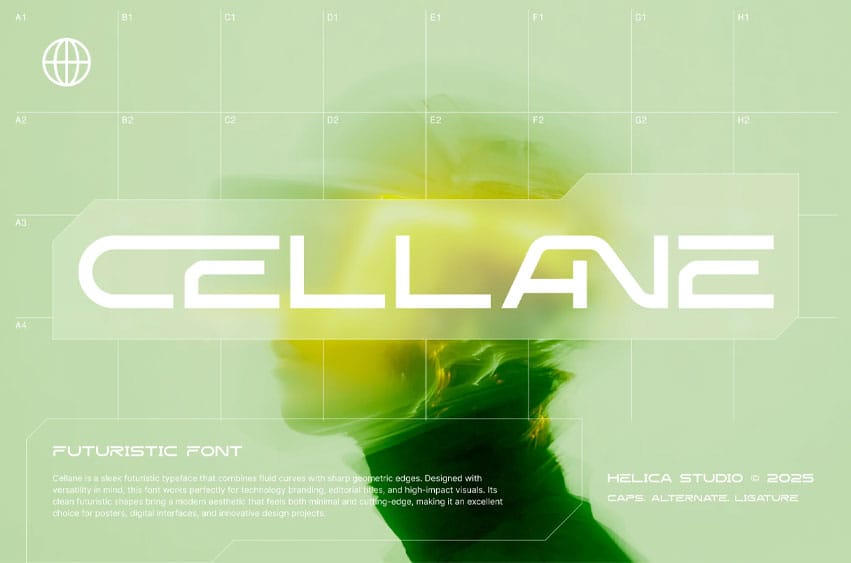
Cellane Futuristic Font brings a balance of minimalism and modern digital energy. This futuristic sans serif font features fluid motion and structured clarity, reflecting innovation and forward-thinking design. Its clean letterforms with subtle angles evoke the feel of advanced interfaces and AI-driven systems, making it suitable for designers aiming for a sleek, contemporary appeal.
Relevance and Use Cases: Excellent for modern branding, UI design, startup identity, advertising visuals, product packaging, and digital campaigns focused on innovation or future technology.